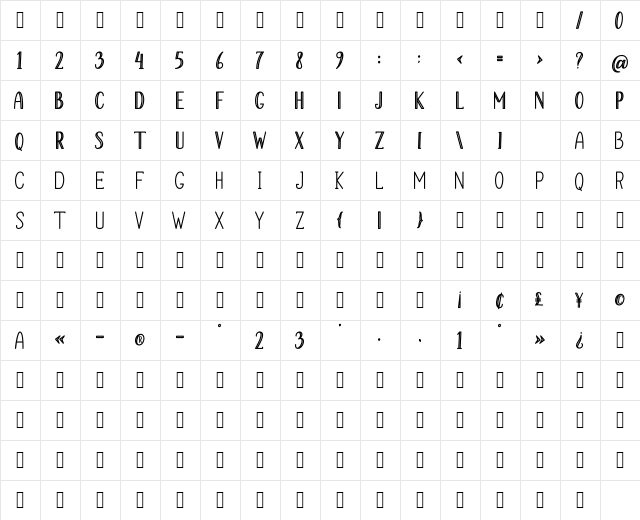
Santa Chrismast Display Regular
Design Context for Santa Chrismast Display Typeface
Santa Chrismast Display brings ornamental detail and strong personality to headlines and identities, where visual impact matters more than quiet functionality.
Font Pairing: Pair with a clean neutral sans-serif for body copy to let Santa Chrismast Display's character lead without overwhelming the composition.
Pro Tip: Use Santa Chrismast Display exclusively at display sizes — it was designed to be seen, not read at length. Let a neutral companion handle body copy.